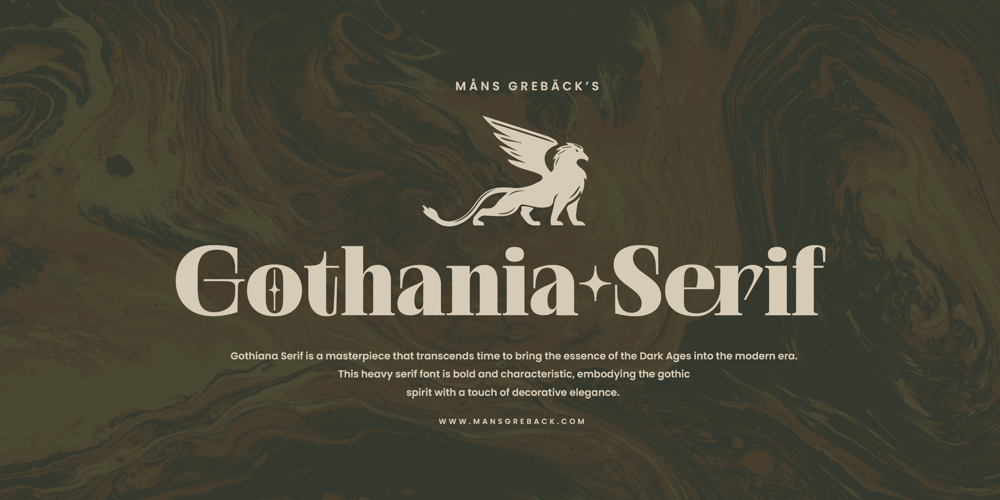
Gothania Serif Font Family was designed by Måns Grebäck and published by Mans Greback. Gothania Serif contains 2 styles and family package options. Gothiana Serif is a masterpiece that transcends time to bring the essence of the Dark Ages into the modern era. This heavy serif font is bold and characteristic, embodying the gothic spirit with a touch of decorative elegance. Its design resonates with the fine craft of historical art, yet it’s perfectly suited for contemporary projects seeking a touch of the mystical and the timeless. Gothiana Serif is of a time when letters carved in stone told a story of valor, mystery, and artistry. The font is built with advanced OpenType functionality and guaranteed top-notch quality, containing stylistic and contextual alternates, ligatures and more automatic and manual features; all to give you full control and customizability. It has extensive lingual support, covering all Latin-based languages, from North Europa to South Africa, from America to South-East Asia. It contains all characters and symbols you’ll ever need, including all punctuation and numbers. Designed by Mans Greback, a renowned typographer known for his attention to detail and passion for historical styles, Gothiana Serif is a testament to his dedication to reviving the artistry of the past. Through this font, Mans invites designers to bridge epochs, blending the mystique and elegance of the gothic era with the boldness and versatility of contemporary design.